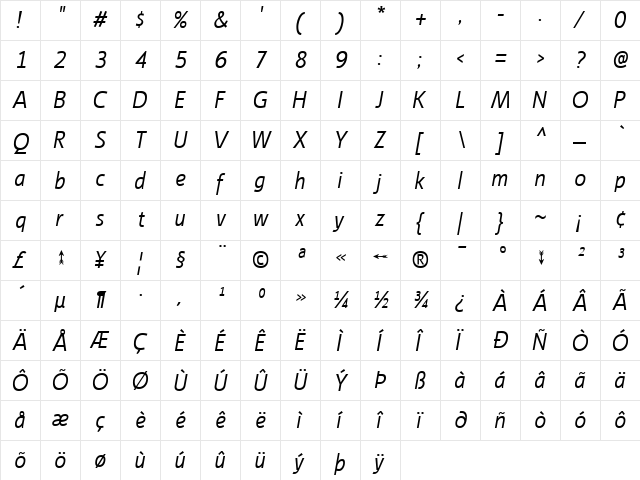
Ligurino Italic
Design Context for Ligurino Typeface
Ligurino takes a measured approach to typography — its balanced proportions and neutral character make it a reliable workhorse for both digital and print work. The slanted form adds forward momentum and visual energy.
Pro Tip: Use Ligurino for emphasis, pull quotes, and subheadings where its slanted energy can add rhythm to the layout.